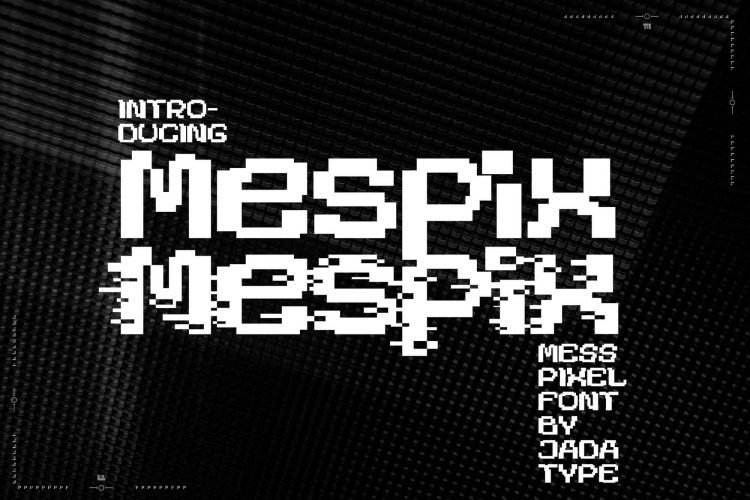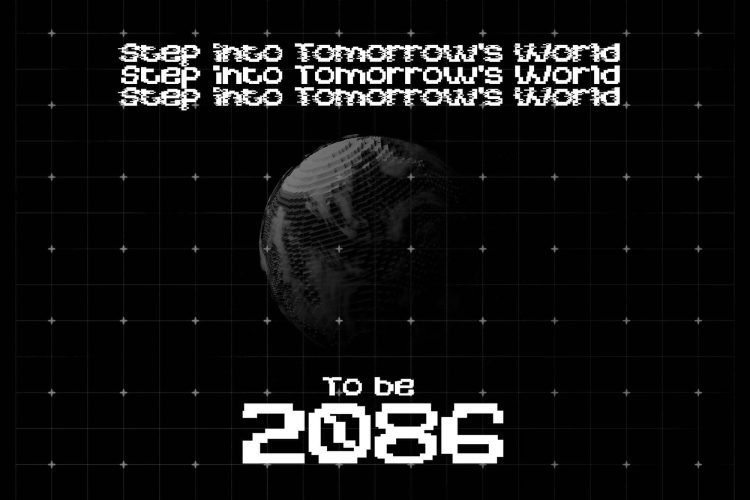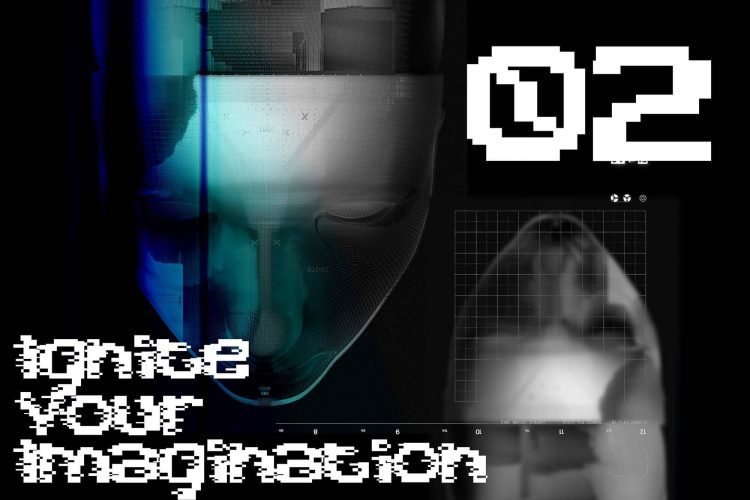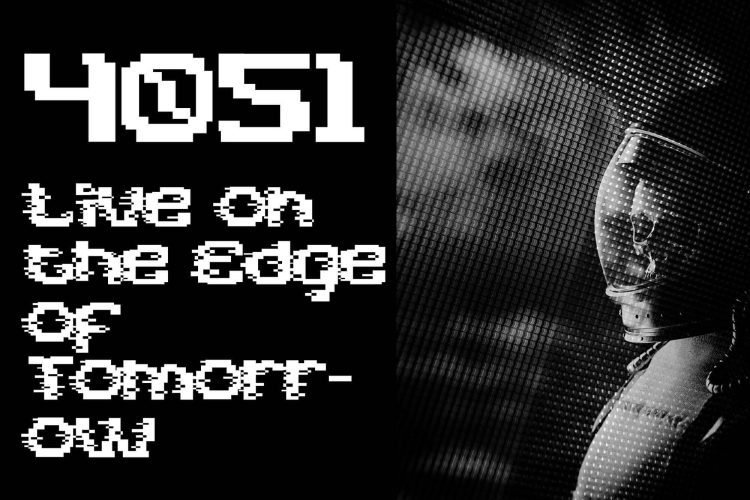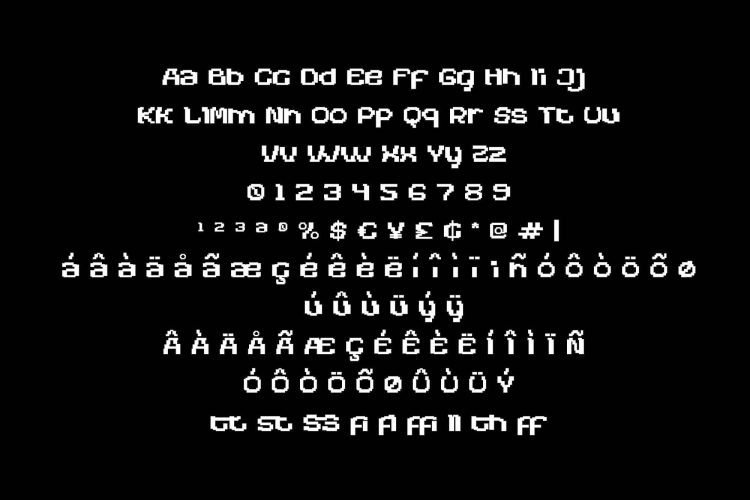
Pixel Font
Mespix is a display font that comes with Pixelate Style. suitable for game product, branding, social media post, logotype and so on. contains standard English letters, numbers, punctuation, and several accents that support multilingualism.
Mespix – Pixel Font